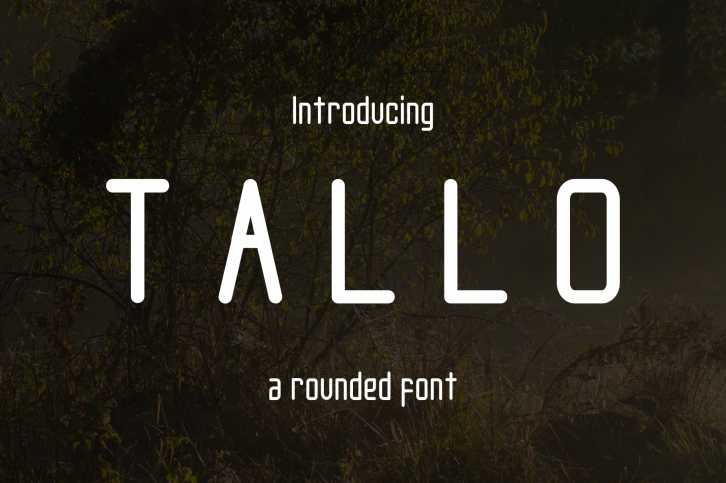
Tallo Font Download
Tallo is a gorgeous font that was realeased on February 26, 2018. The font can be used in many style contexts and design environments. Perfect for invitations, magazines, websites, logos, and more! It was designed by Bangun Studio and the file size is 2.33 MB. Thanks for checking out this font!